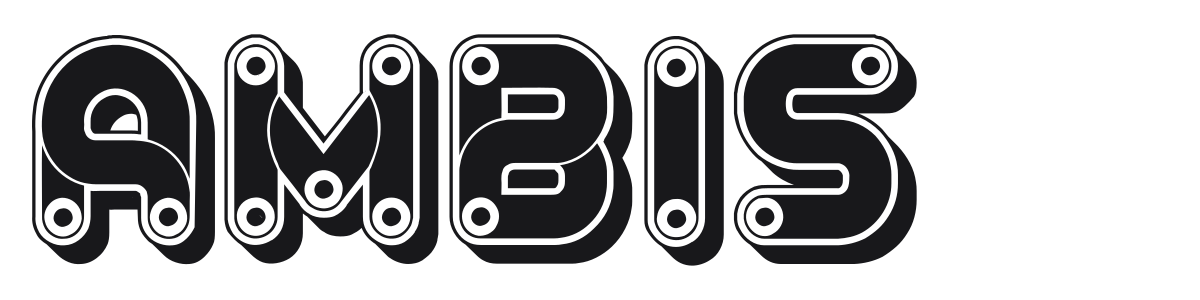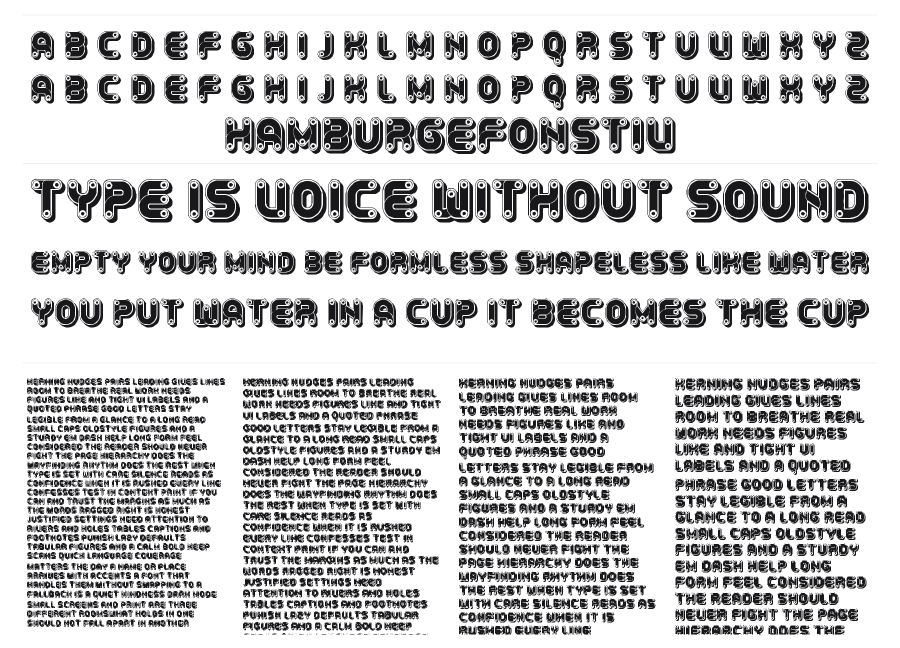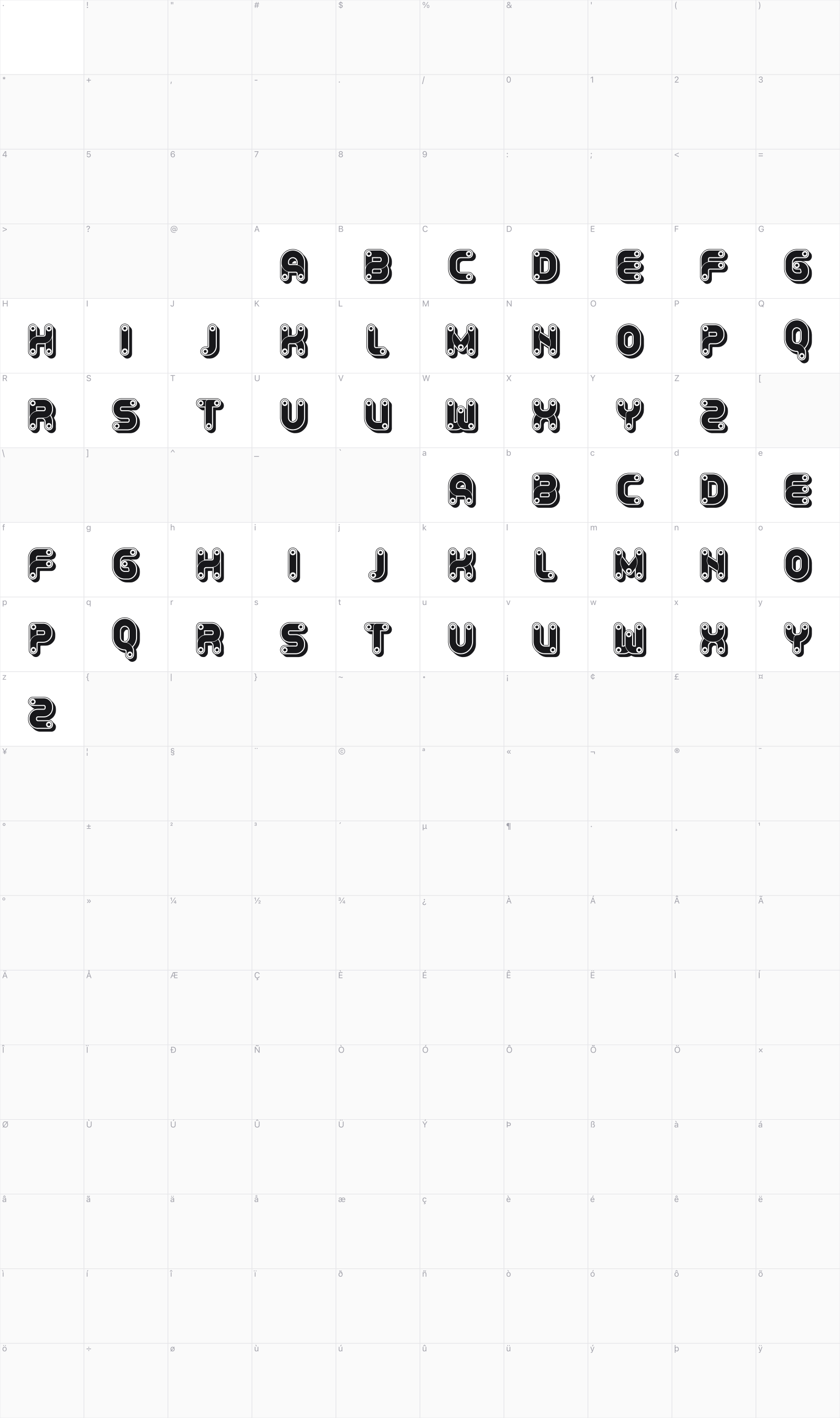
Ambis
Ambis is a bold rounded display font layered with a circuit-board pattern of small circular dots that cover each character like rivets or solder joints. The multi-outline construction and heavy rounded forms give it a strong retro-futuristic presence somewhere between 1970s sci-fi and modern tech aesthetics. It works best large, where all that surface detail can breathe.